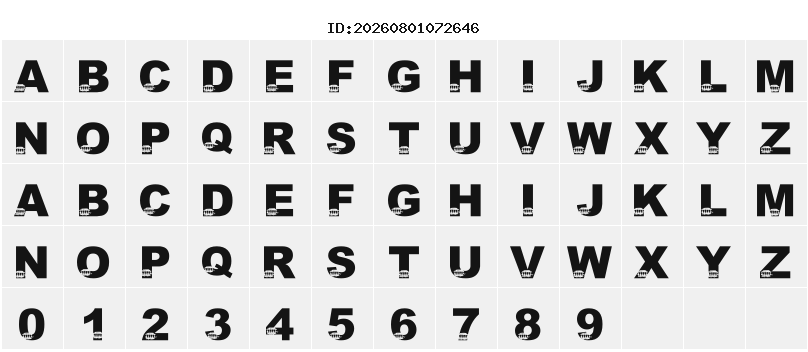
LMS Mr Rogers Trolly Preview
• Font Name: LMS Mr Rogers Trolly
• Full Font Name: LMS Mr Rogers Trolly
About LMS Mr Rogers Trolly.ttf
LMS Mr Rogers Trolly.ttf is a modern, elegant sans-serif font designed for ultimate readability and visual harmony. Perfect for branding, headlines, web design, and print materials.